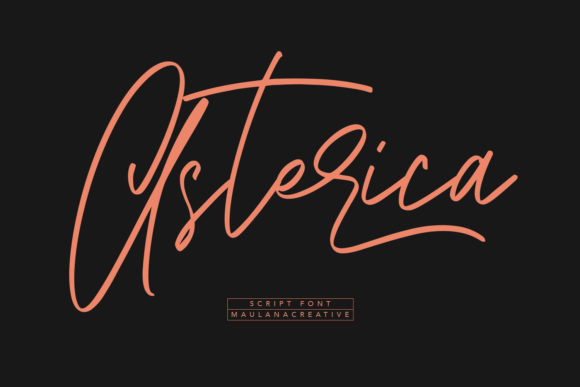
Asterica Font: Elevating Boutique Branding with Script
Opening a blank artboard for a new boutique skincare client always brings a mix of excitement and pressure, especially when searching for that perfect typeface to define their visual voice. I recently introduced Asterica into my workflow during the concept phase for an organic beauty line, and it immediately shifted the tone of the entire project. As a designer constantly sifting through thousands of Fonts, finding one that balances elegance with modern usability is rare, but this specific Script Handwritten style offered exactly the contemporary freshness my client needed without sacrificing classic sophistication.
Asterica for Organic Skincare Logo Design and Identity
When testing Asterica for logo design, I was specifically looking for a typeface that could carry the weight of a brand name while feeling intimate and handcrafted. This font excels in identity work because its letterforms possess a natural rhythm that mimics high-end calligraphy without looking dated or overly ornate. In my mockups, the connecting strokes flowed seamlessly, creating a wordmark that felt bespoke rather than typed. For designers working on brand identities, the key is utilizing the OpenType features often included with premium scripts like this; accessing stylistic alternates allowed me to customize the swashes on the capital letters to frame the logo perfectly. It transformed a standard logotype into a signature piece of art that communicated luxury and care instantly.
The versatility of this Script Handwritten font became apparent when scaling the logo down for business cards and social media avatars. Often, intricate scripts lose legibility at small sizes, but Asterica maintains distinct character shapes even when reduced. This readability is crucial for functional branding assets where clarity cannot be compromised for style. The font’s contemporary structure ensures it doesn't feel like a vintage relic, making it ideal for modern brands that want to honor tradition while appealing to a current audience. It strikes that difficult balance of being decorative enough for a primary logo mark yet clean enough to serve as a recurring brand element across various touchpoints.
Using Asterica on Product Packaging and Cosmetic Labels
Moving from digital screens to physical packaging, Asterica proved to be an exceptional choice for labeling and unboxing experiences. When designing serum bottles and outer boxes, typography must compete with regulatory text and ingredient lists, so having a display font that commands attention without overwhelming the layout is essential. I used this typeface for the product names and key benefit callouts, pairing it with a minimalist sans serif for the technical details. The contrast between the fluid, expressive lines of Asterica and the rigid structure of the supporting text created a sophisticated visual hierarchy that guided the customer’s eye naturally across the package.
For fellow designers tackling packaging projects, consider how ink spread and printing methods will affect fine details. Fortunately, the stroke weight in this font family is robust enough to handle both foil stamping and embossing techniques, which are popular in the luxury skincare niche. During the proofing stage, I noticed that the ligatures prevented awkward spacing issues that often plague script fonts on curved surfaces like bottles. This practical reliability saves hours of manual kerning and adjustment. Whether you are designing a matte paper label or a glossy jar sticker, the font retains its exquisite handwritten charm, ensuring the tactile experience matches the visual promise of the brand.
Asterica in Social Media Graphics and Editorial Layouts
Digital content requires typography that stops the scroll, and Asterica serves as a powerful hook for Instagram posts, Pinterest pins, and website headers. While creating a content template system for the skincare brand, I utilized this font for quote overlays and promotional headlines. Its classy calligraphic influences add a layer of warmth to digital graphics that can sometimes feel cold or sterile. Unlike generic handwriting fonts that might look messy or juvenile, Asterica carries a professional polish that elevates user-generated content styles and influencer marketing materials. It signals to the viewer that the content is curated and high-value before they even read the caption.
In editorial design contexts, such as blog headers or digital lookbooks, this Script Handwritten typeface functions beautifully as an accent element. I found it particularly effective when used sparingly to highlight keywords or emotional triggers within a larger body of text. For example, using Asterica for words like "radiance," "pure," or "handmade" amidst a clean serif paragraph creates a dynamic reading experience. However, a word of caution for designers: resist the urge to use it for long blocks of text. Its intricate nature demands space and breathing room. Treat it as jewelry for your layout—strategic placement yields far better engagement and aesthetic results than saturation.
Pairing Asterica with Modern Sans Serif Fonts for Hierarchy
No font exists in a vacuum, and successful implementation of Asterica depends heavily on thoughtful font pairing. Because this typeface has such strong personality and decorative flair, it requires a grounding partner to maintain professional balance. In my project, I paired it with a geometric sans serif that shared similar x-height proportions but offered stark contrast in style. This combination prevents the design from becoming too sentimental or old-fashioned. The goal is to let Asterica sing as the soloist while the supporting font acts as the steady orchestra. Avoid pairing it with other highly decorative scripts or ornate serifs, as this creates visual competition and reduces overall legibility.
Designers should also pay close attention to vertical spacing when mixing this script with other typefaces. The ascenders and descenders in Asterica are generous, which adds to its elegant flow but can cause collision issues if line heights aren't adjusted. Increasing the leading around the script elements helps preserve their airy, fresh feeling. Additionally, checking the multilingual support and special character sets is vital before finalizing any brand guidelines. Ensuring that accented characters and punctuation marks match the quality of the base alphabet guarantees consistency across international markets. When these technical details align with the aesthetic vision, the result is a cohesive brand system that feels both masterfully designed and effortlessly contemporary.